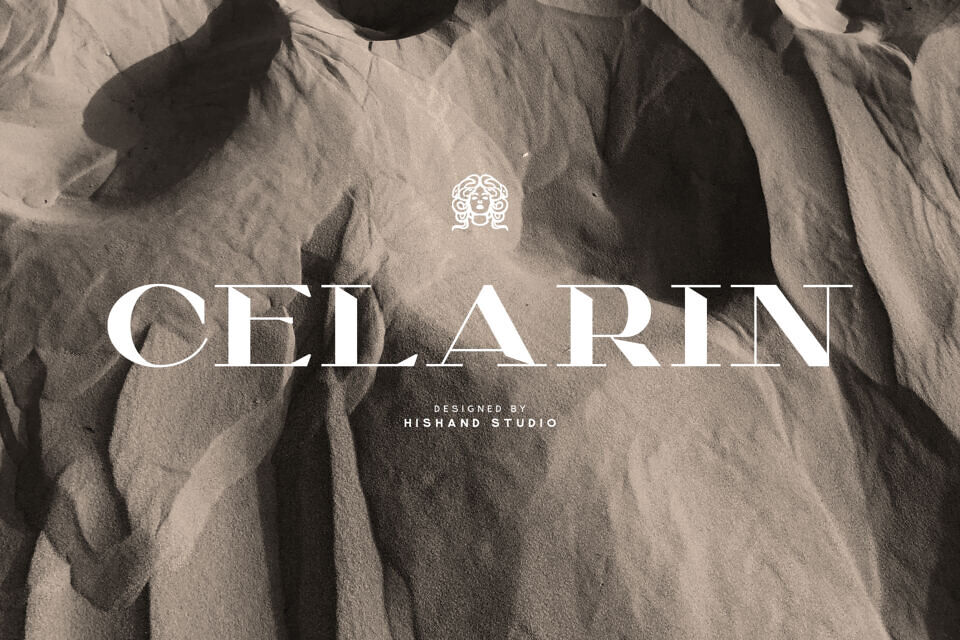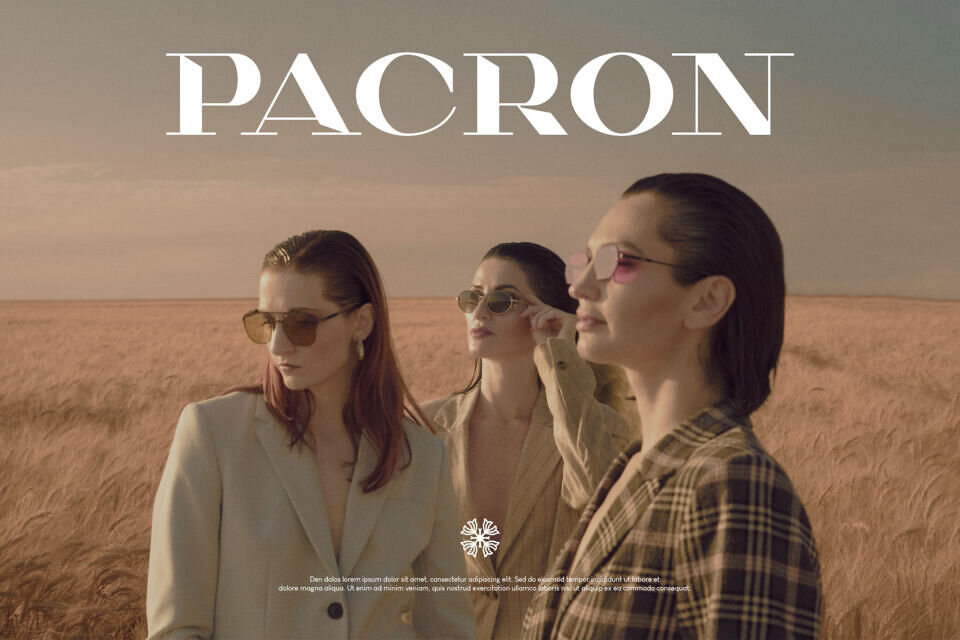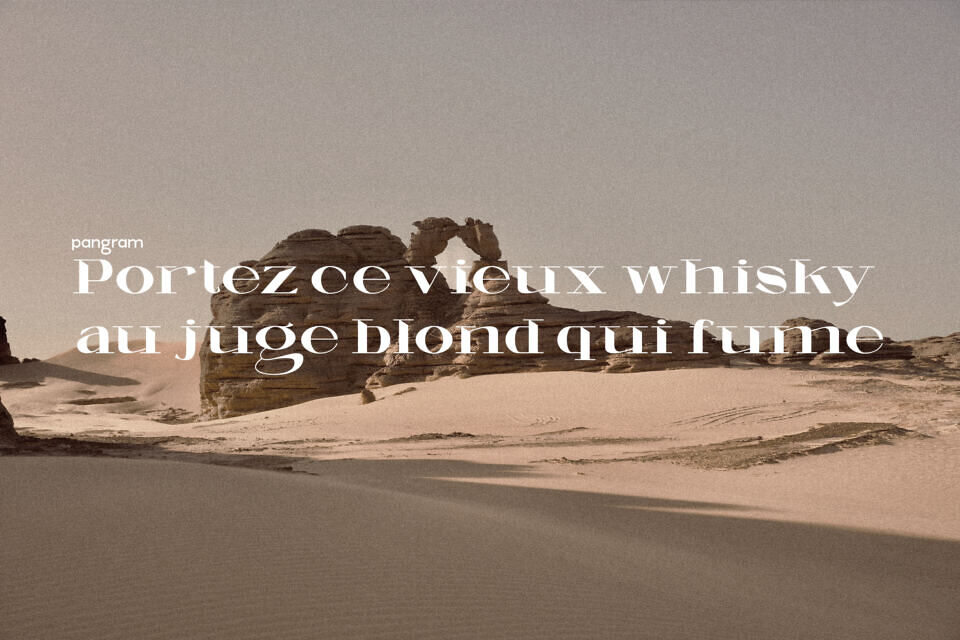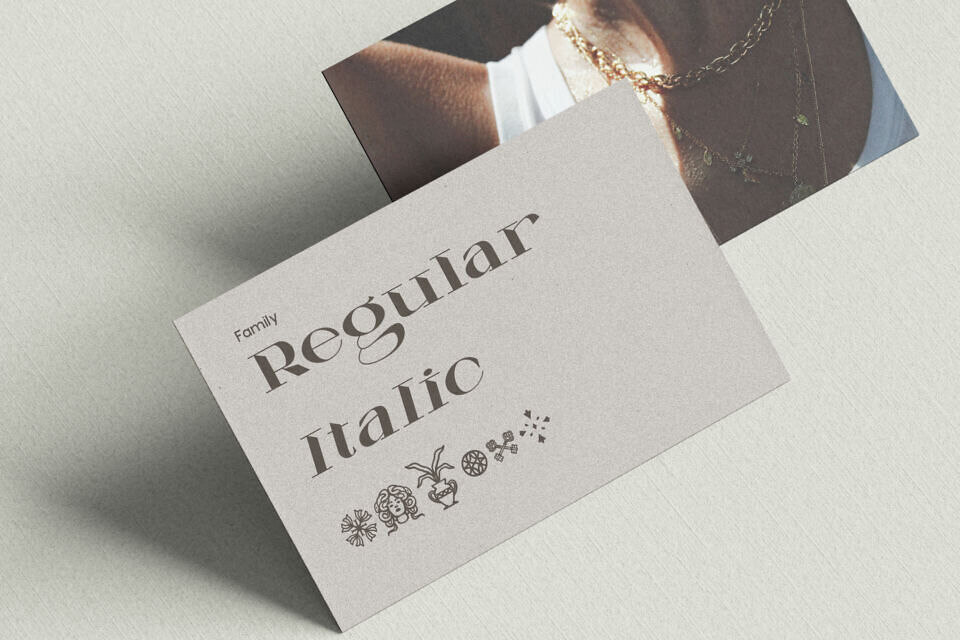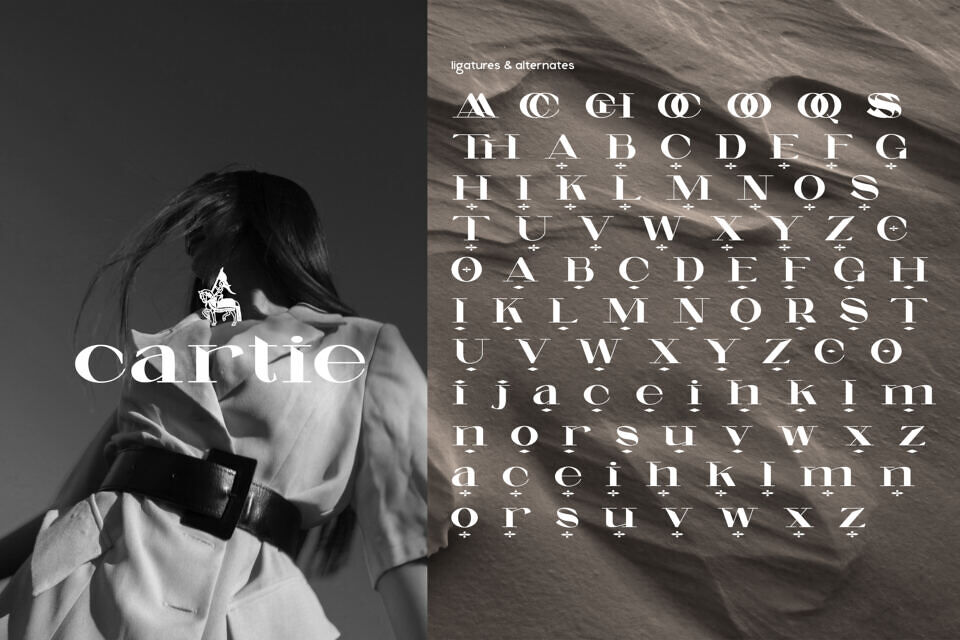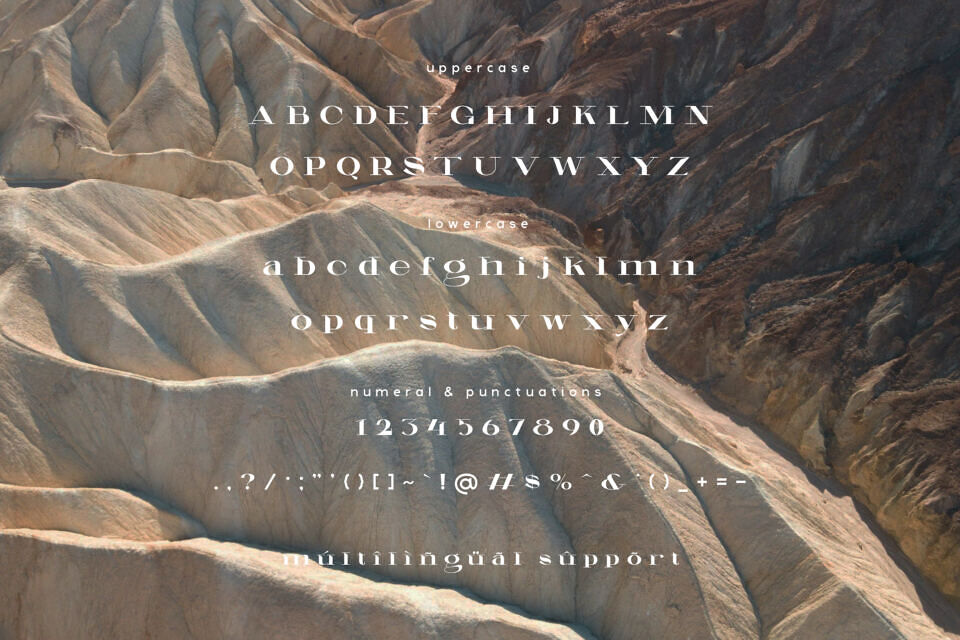
Celarin Font
Celarin, a serif font crafted by Hishand Studio, exudes effortless elegance with a modern edge. Its sharp lines, graceful curves, extended serifs, and bold contrast strike a balance between sophistication and timeless charm.
Designed for intentional, elevated aesthetics, Celarin shines in luxury branding, fashion campaigns, or editorial layouts. Its versatility adapts to minimalist designs or cinematic, textured compositions, making it ideal for headlines, logos, or print and digital formats.
Celarin evokes style, artistry, and premium appeal without being overstated. More than a typeface, it’s a quiet yet powerful statement, infusing projects with clarity, grace, and enduring elegance, perfect for brands seeking refined, artistic expression.